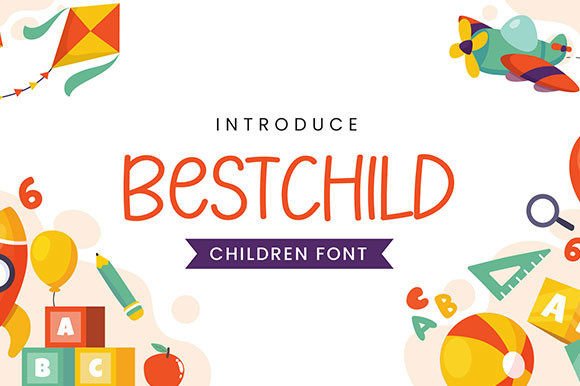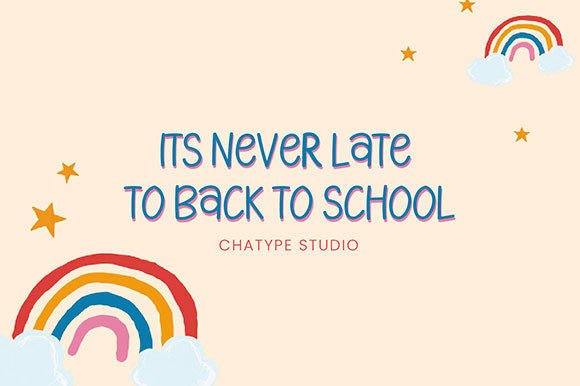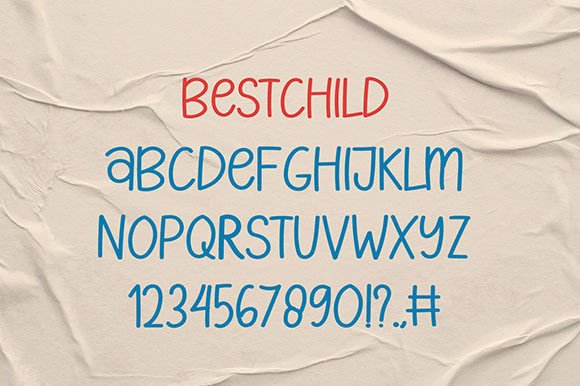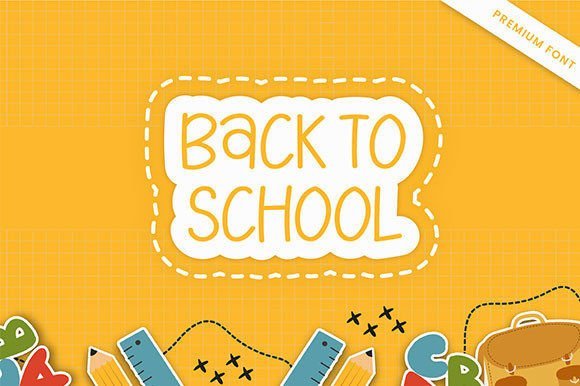
The Perfect Match for Your Creative Projects: Bestchild Font
Have you ever stumbled upon a font that makes you feel like you’re holding a paintbrush in your hands? The strokes are smooth, the lines are playful, and the overall feel is just pure joy. That’s exactly what happens when you discover the Bestchild Font. This charming handwritten font is a game-changer for designers, crafters, and anyone looking to add a personal touch to their projects.
Whether you’re designing a greeting card for a special occasion or creating a presentation for a client, the Bestchild Font is the perfect companion. Its friendly and approachable vibe makes it easy to use, and its versatility means it can be used for a wide range of projects. For designers, this font is a valuable asset, offering a unique and creative way to express their ideas and bring their vision to life.
Key Features of Bestchild Font
- Unique Characteristics: Bestchild Font features a unique blend of modern and playful elements, making it perfect for children’s books, educational materials, and other projects that require a friendly tone.
- Style Variations: Bestchild Font comes with multiple style variations, including regular, bold, italic, and bold-italic, allowing users to choose the perfect style to suit their needs.
Bestchild Font Review
I recently had the chance to work with the “Bestchild Font”, and I must say it’s a decent addition to any designer’s toolkit. Here are my thoughts on what works well and what could be improved.
- Unique Style**: Bestchild Font offers a unique, hand-drawn style that’s perfect for creating a playful and whimsical atmosphere in your designs.
- Highly Legible**: The font is surprisingly legible, making it suitable for a wide range of applications, from body text to headings.
- Extensive Character Set**: The font includes a comprehensive set of characters, including special characters and ligatures.
- Limited Font Sizes**: While the font is legible, it starts to lose its charm at very small font sizes, making it less suitable for tiny text.
- Lack of Customization Options**: The font’s design is quite fixed, making it difficult to customize or modify to suit specific design needs.
Overall, I’d give the “Bestchild Font” 3.5 out of 5 stars. While it’s not perfect, its unique style and legibility make it a great choice for designers looking to add some personality to their work. However, its limitations mean it may not be the best fit for every project.
The Bestchild Font is ideal for creative projects, such as invitations, posters, and branding materials. It’s also suitable for educational and children’s content, as its playful and cursive design makes it engaging and fun to read.